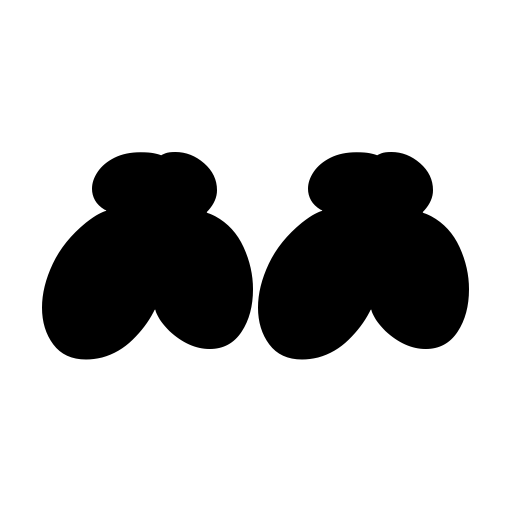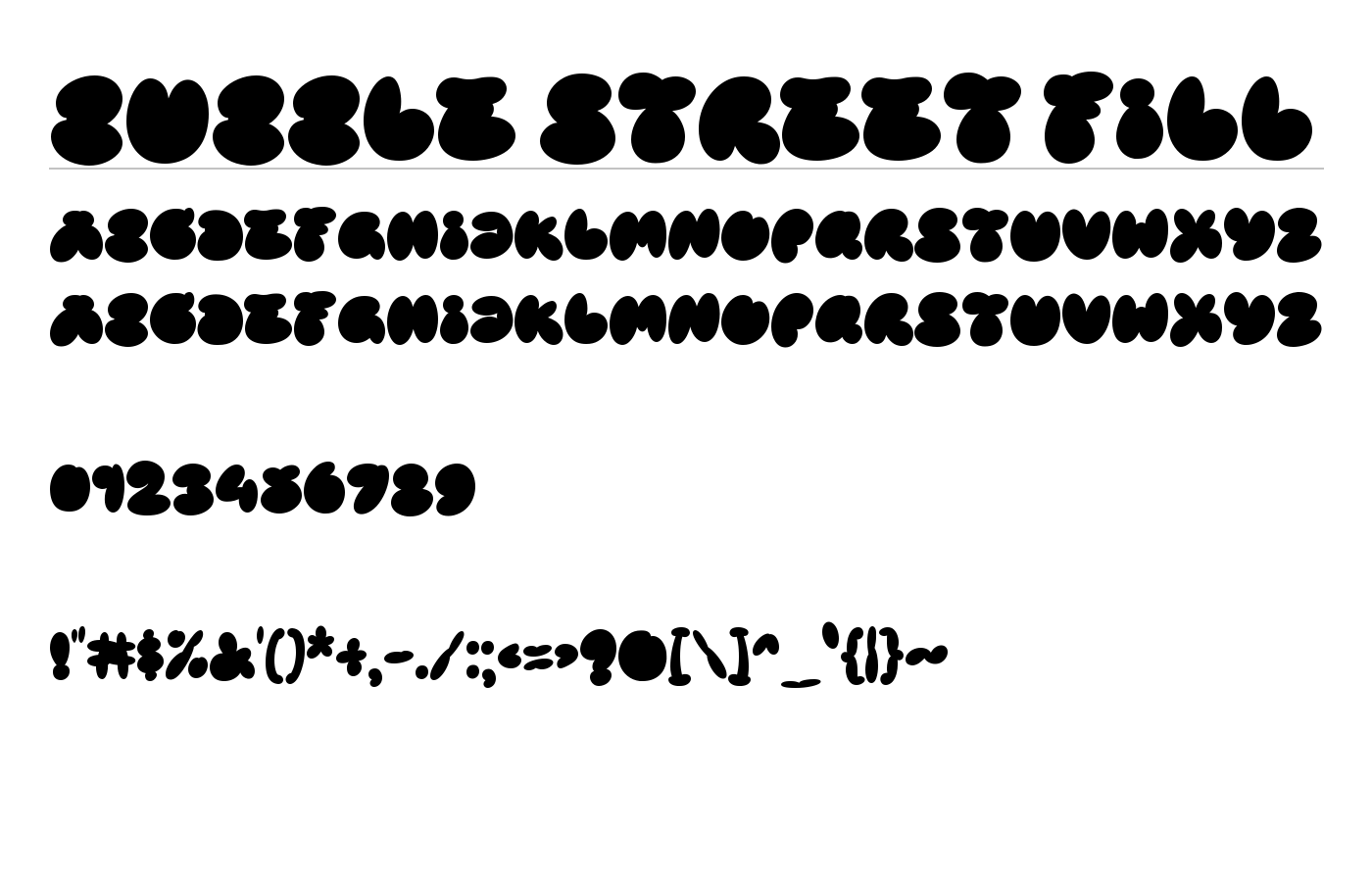
Bubble Street Fill Font is a bold and playful sans serif typeface characterized by its heavy, rounded shapes that resemble bubbly, inflated letters. Its compact and consistent stroke weight coupled with smooth, curved edges make it perfect for fun, casual branding, children’s packaging, or any design seeking a friendly, energetic vibe. This font works best in large display settings like headlines or logos where its unique bubbly style can stand out and grab attention.
Bubble Street Fill Font
About Bubble Street Fill Font